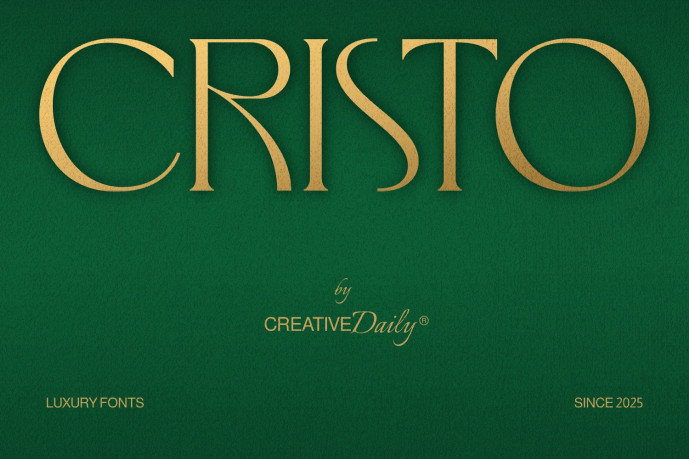
Cristo – Clean Minimal Elegant Font
Designer: CreativeDaily
Cristo is a refined serif typeface designed with clean lines and timeless elegance. Its balanced letterforms and subtle details make it versatile for both modern and classic design projects. With a minimal yet sophisticated style, Cristo ensures every headline, logo, or branding element appears professional and distinctive.
Perfect for editorial layouts, corporate identities, invitations, fashion branding, and premium product packaging, Cristo brings a touch of elegance without overwhelming the design. Whether used for print or digital media, its sharp readability and graceful curves make Cristo a reliable choice for creating polished and stylish visuals.